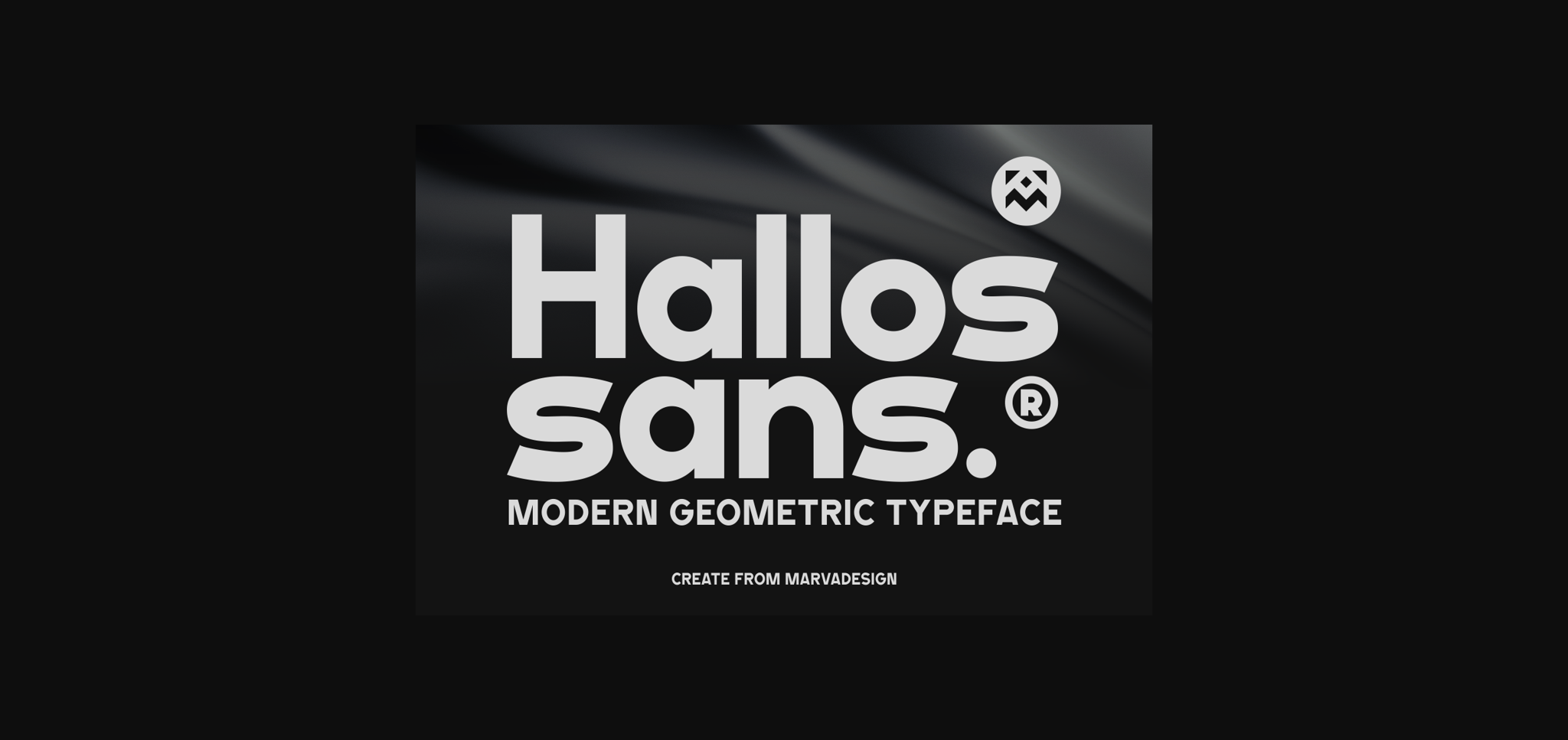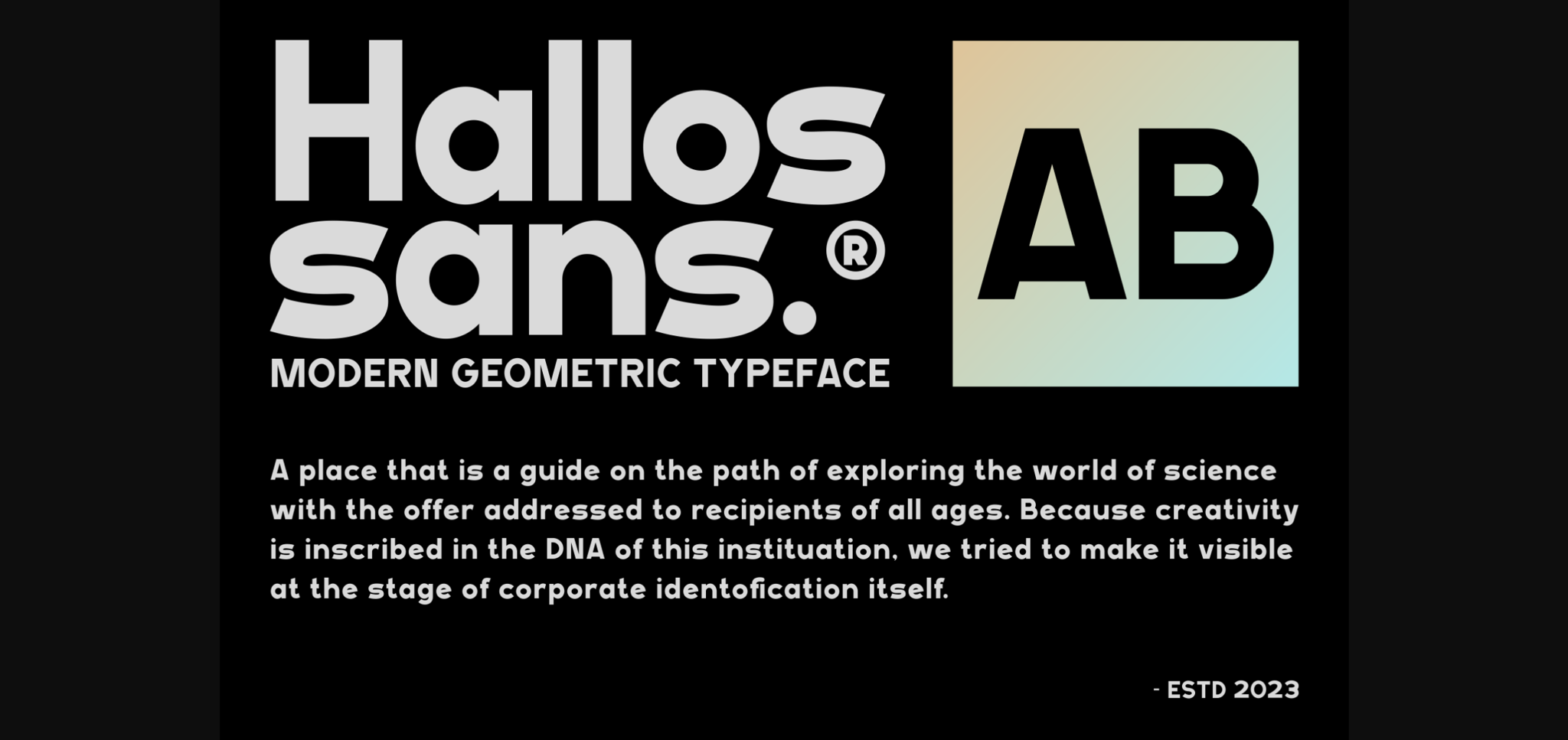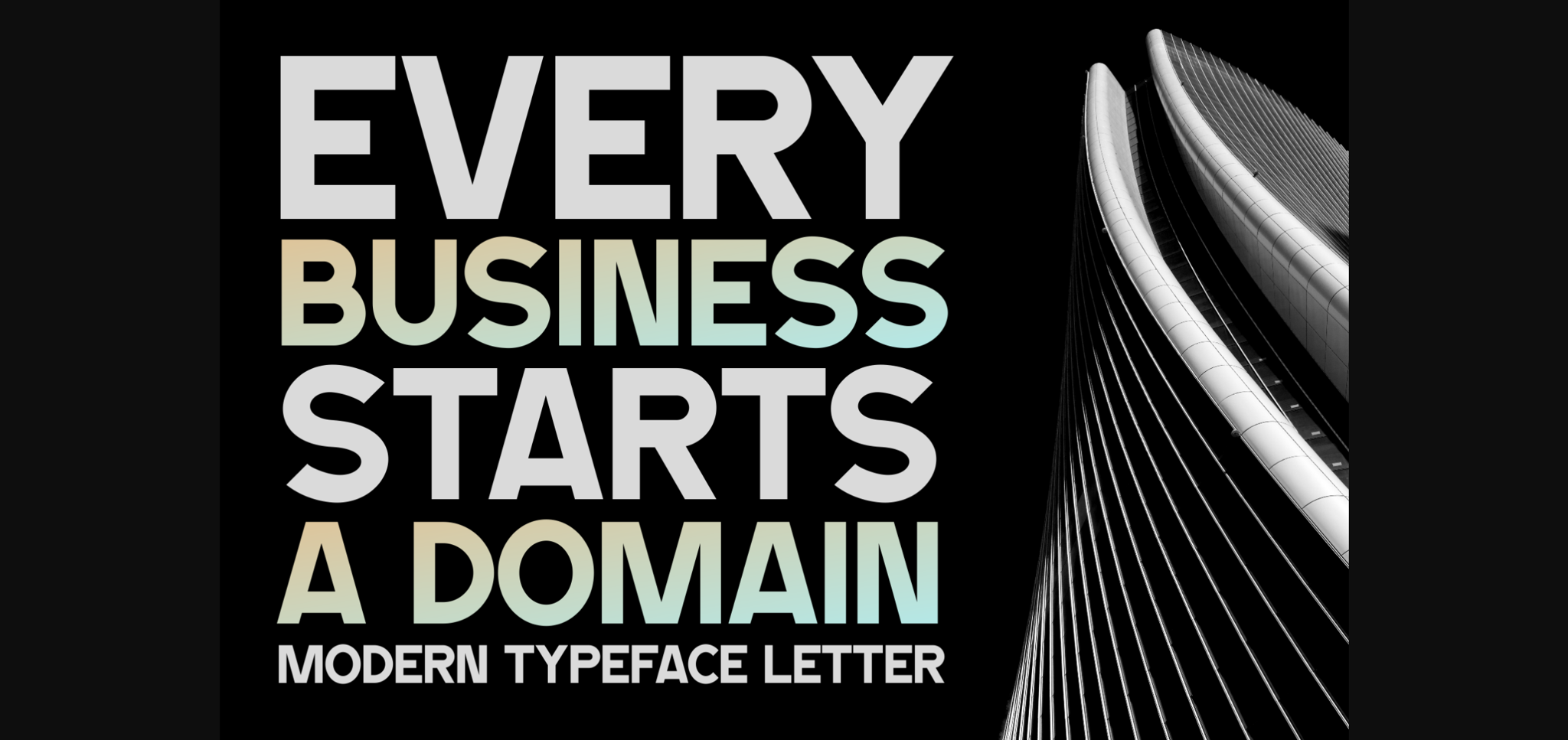
About Hallos Sans Font
Hallos Sans is a bold and assertive sans serif font. No matter the topic, this font will be an incredible asset to your fonts’ library, as it has the potential to elevate any creation.